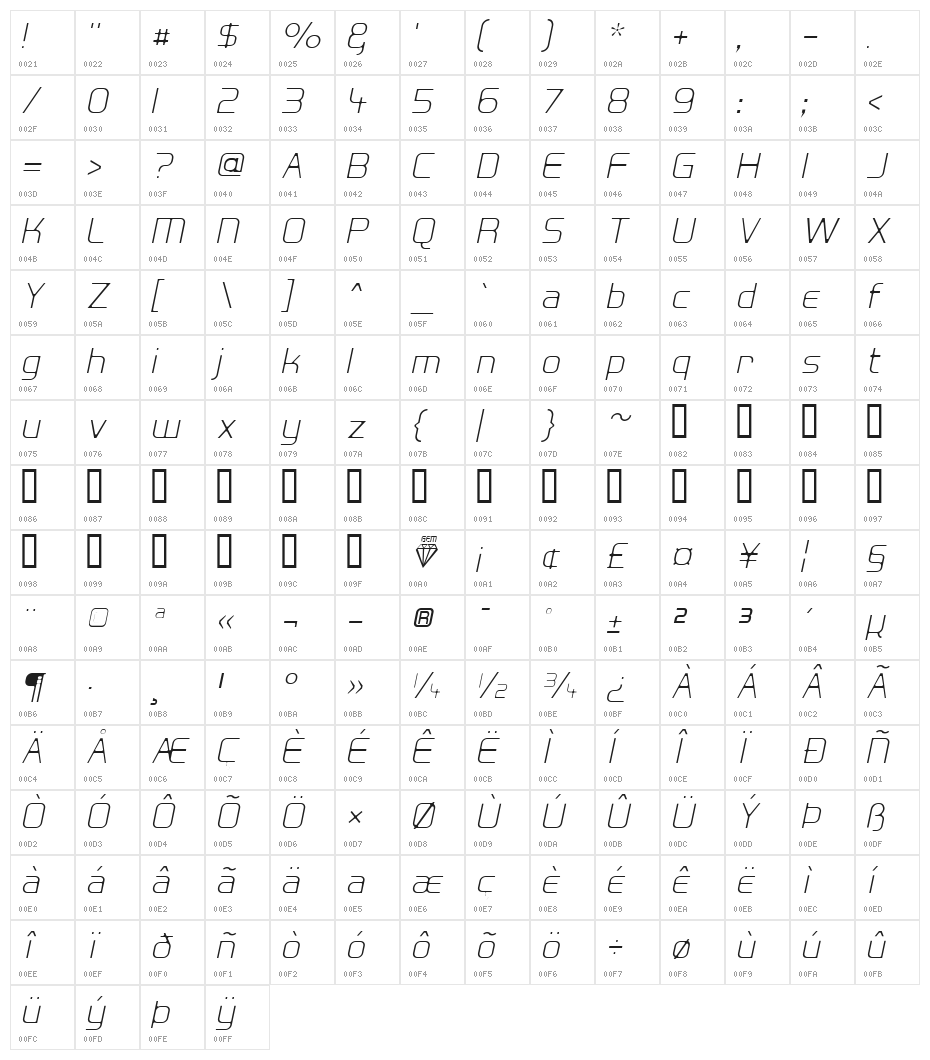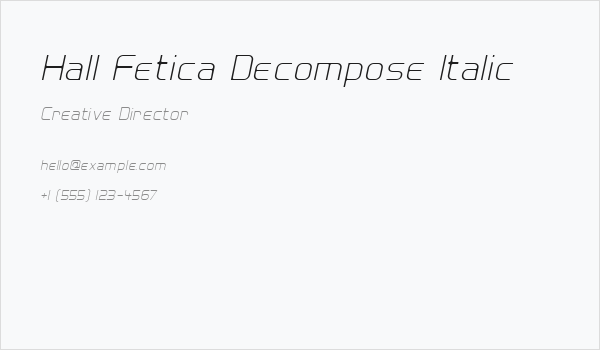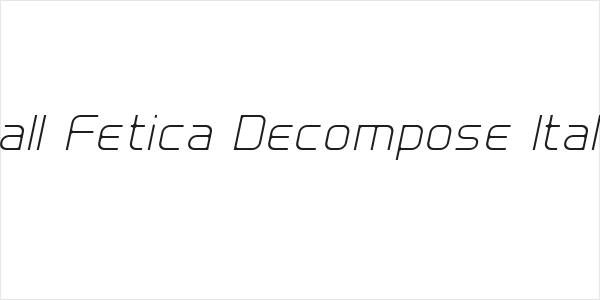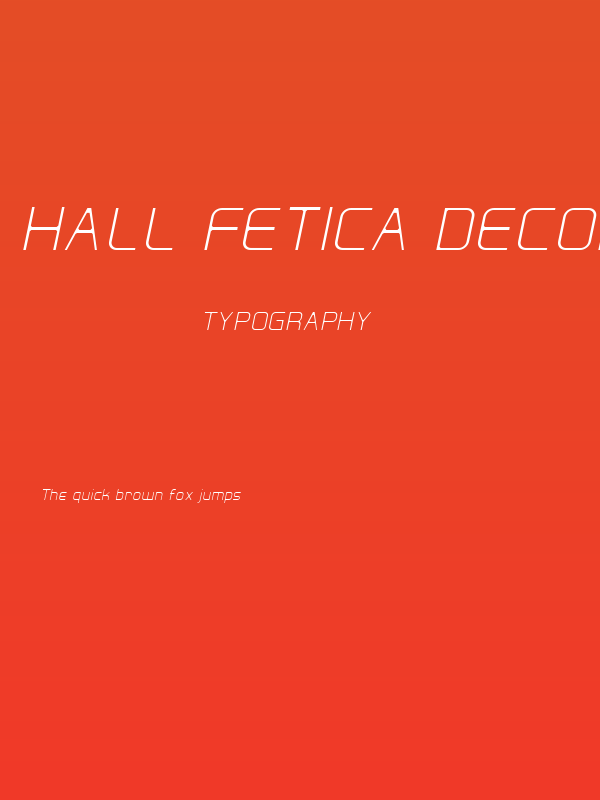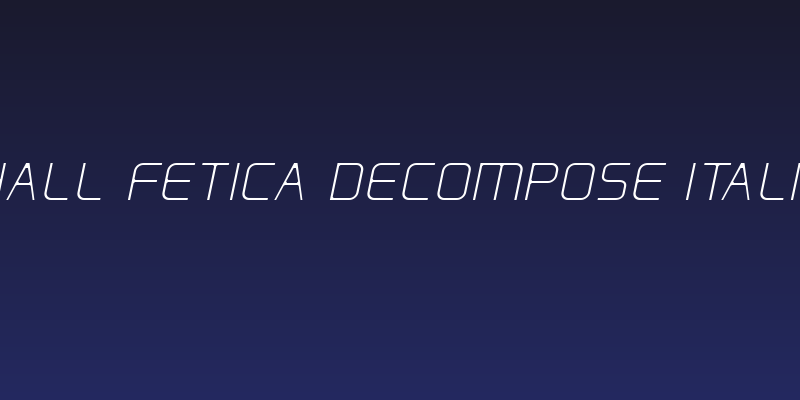
Hall Fetica Decompose Italic Font
Hall Fetica Decompose Italic Description
This font features a sleek, modern design with a distinct italic slant, giving it a dynamic and forward-moving appearance. The characters are crafted with a geometric precision, showcasing clean lines and a minimalist aesthetic. The uppercase and lowercase letters maintain a consistent style, with rounded edges and a uniform stroke width that contributes to its contemporary feel. The numerals and special characters are designed to complement the alphabet, ensuring a cohesive look across all text. This font's unique style makes it suitable for projects that require a modern and technical touch.
| Proposed Projects | Ideal for technology branding, modern advertising, and innovative product packaging. |